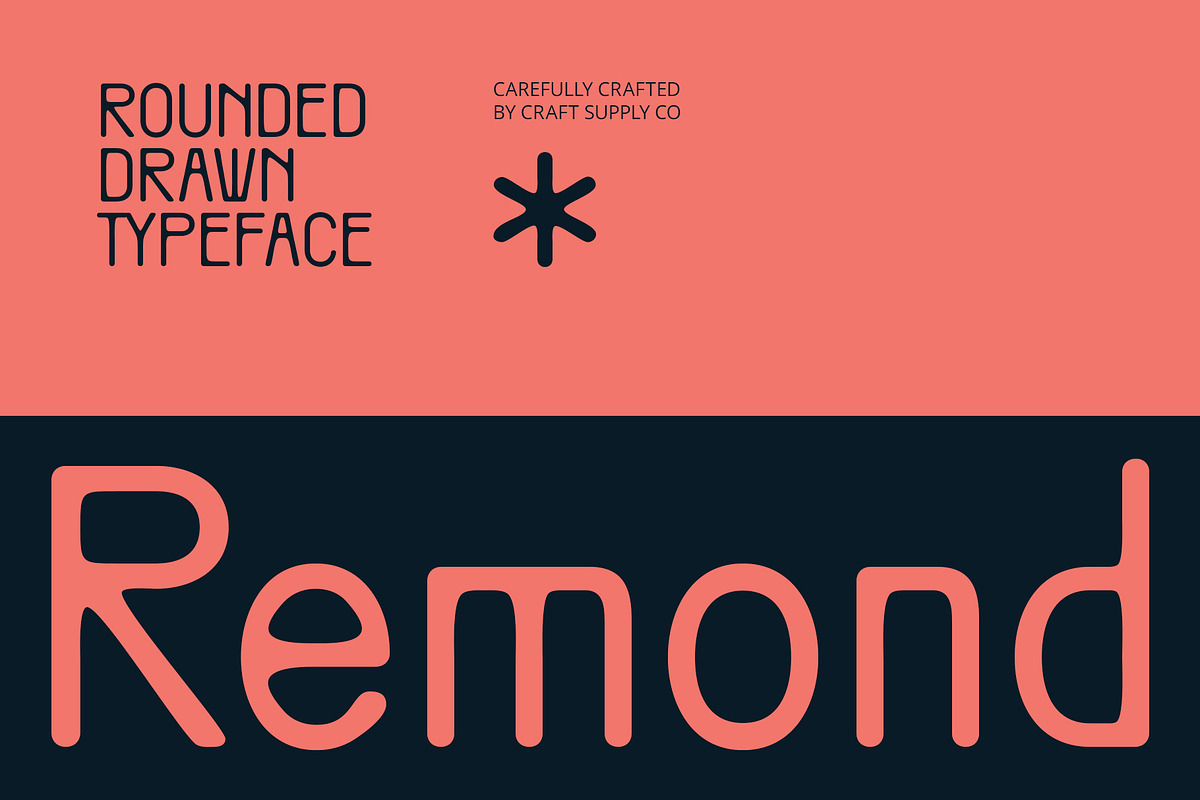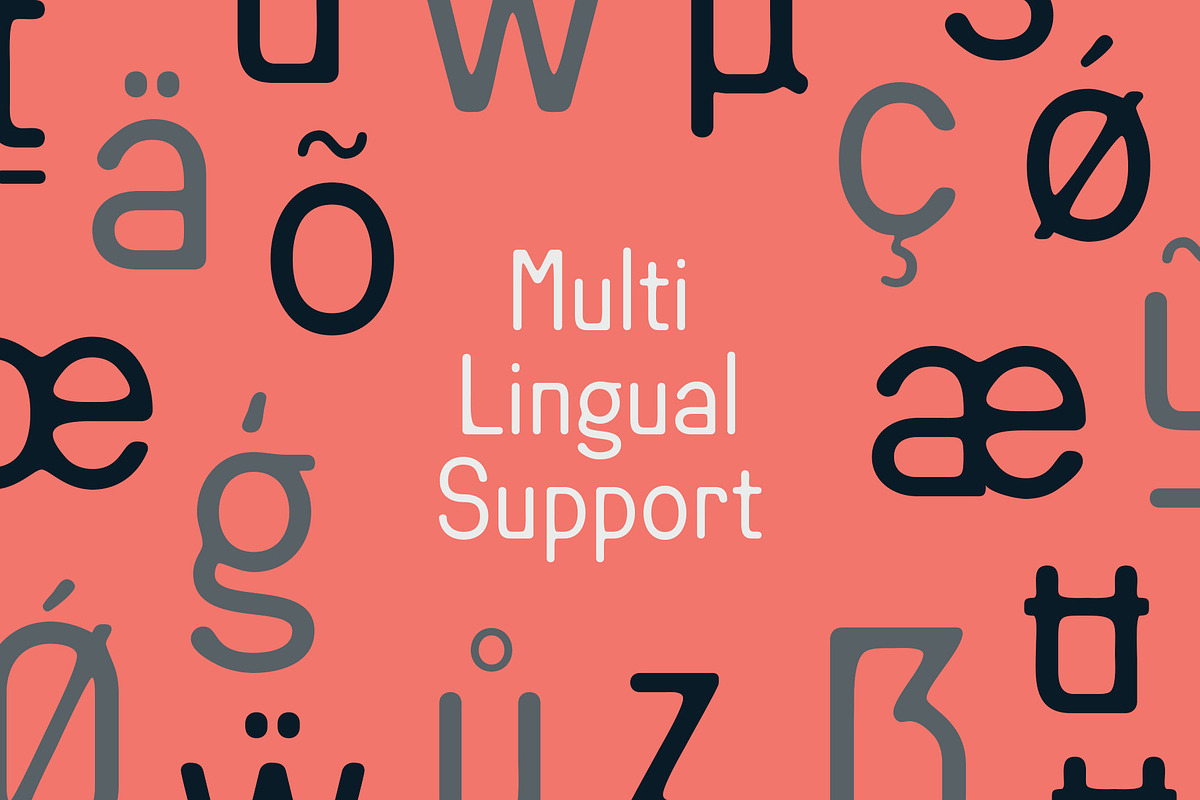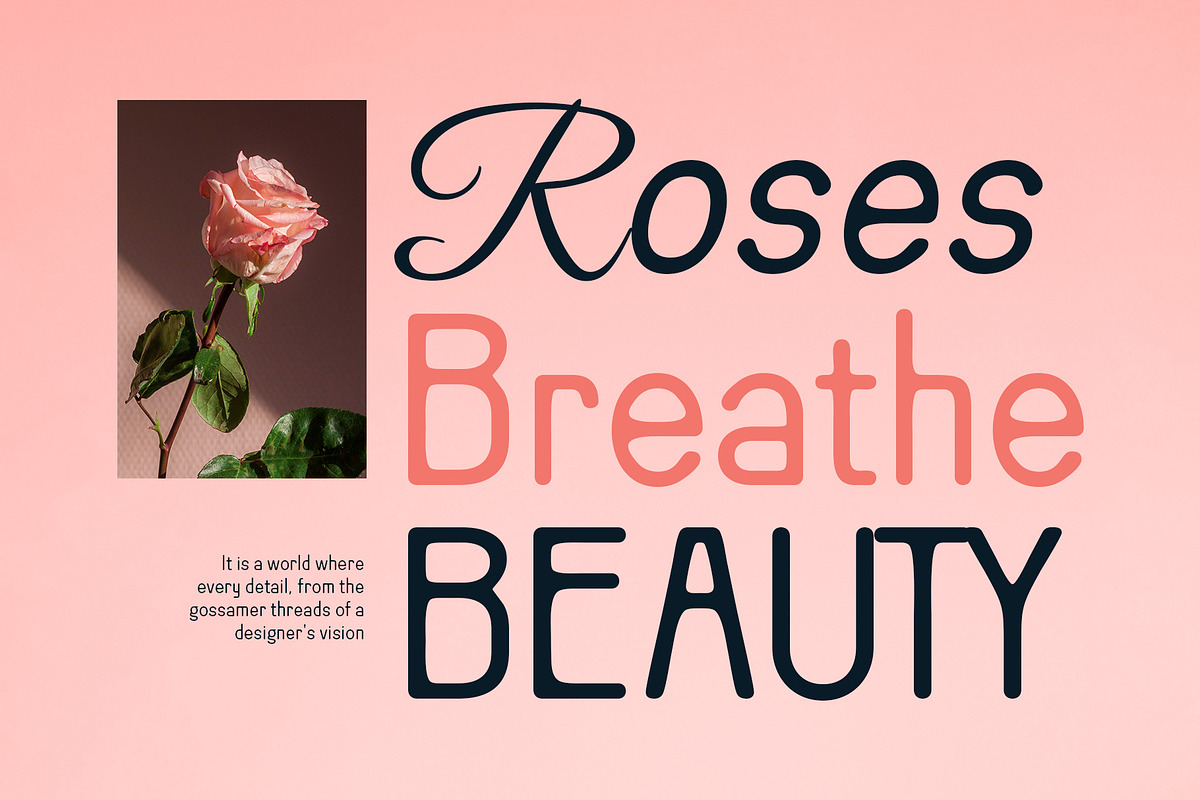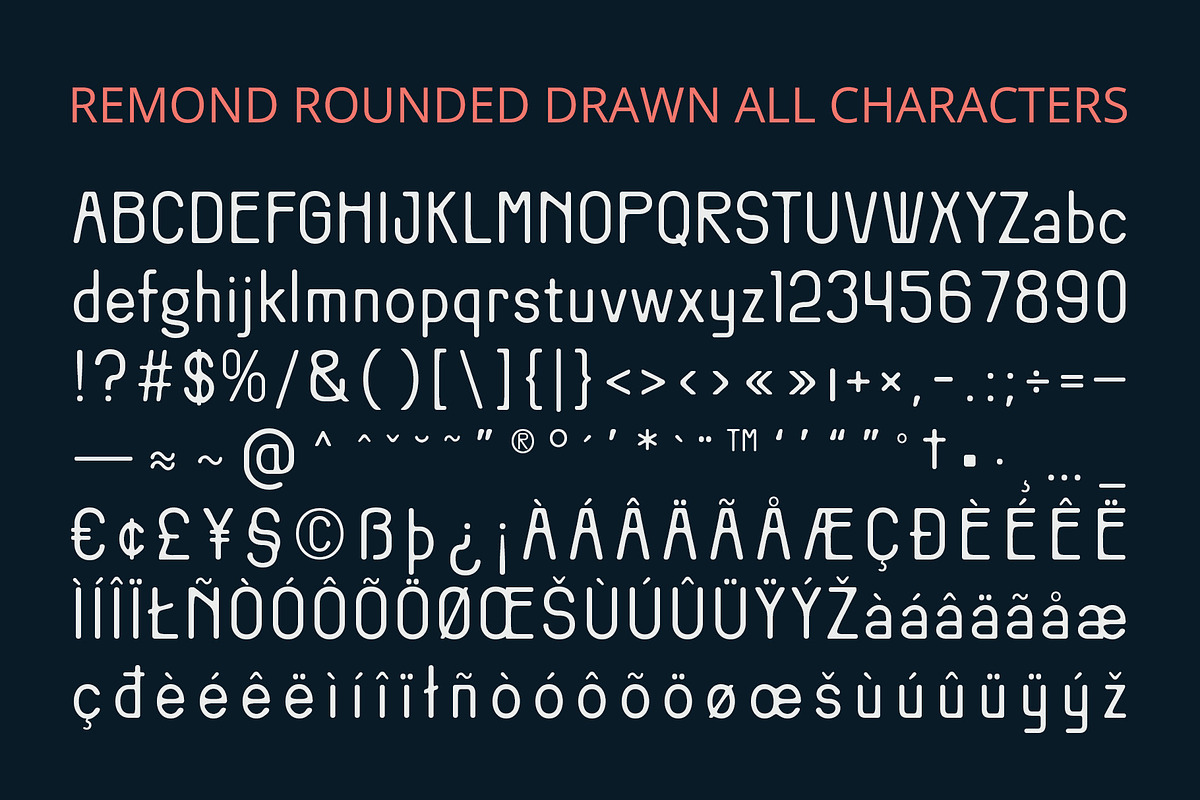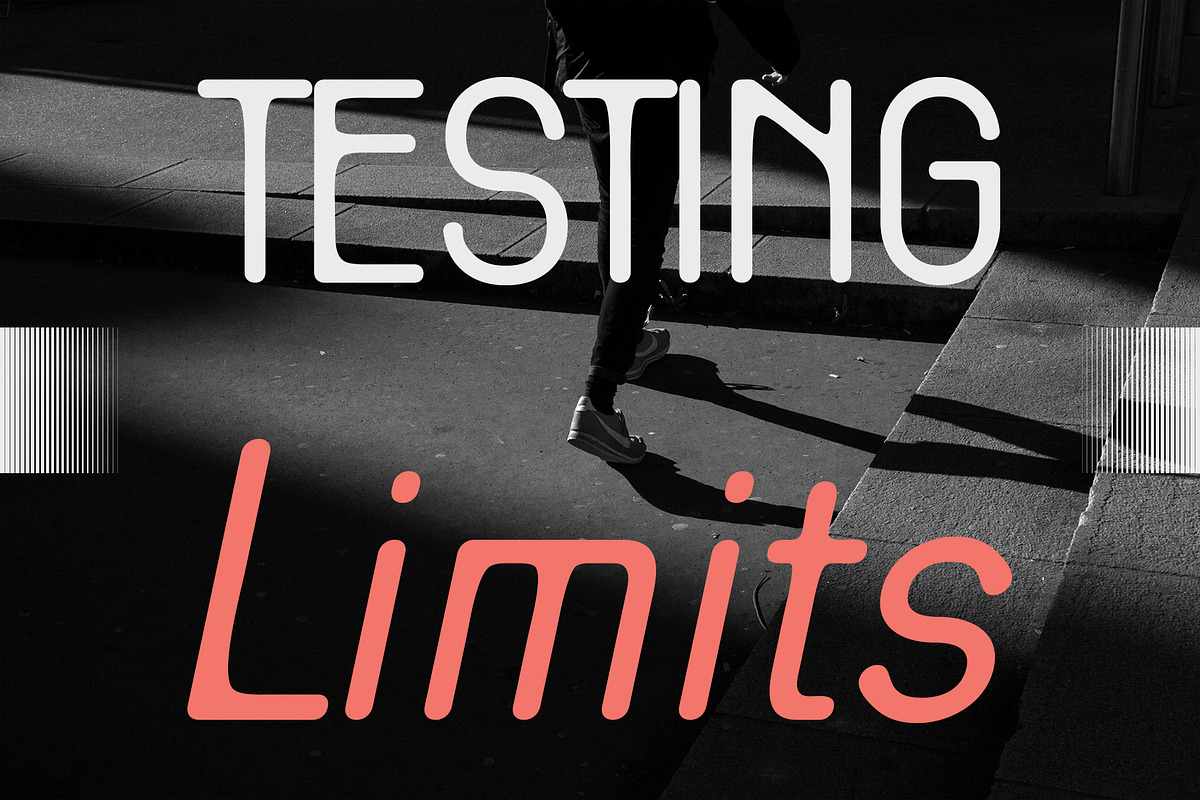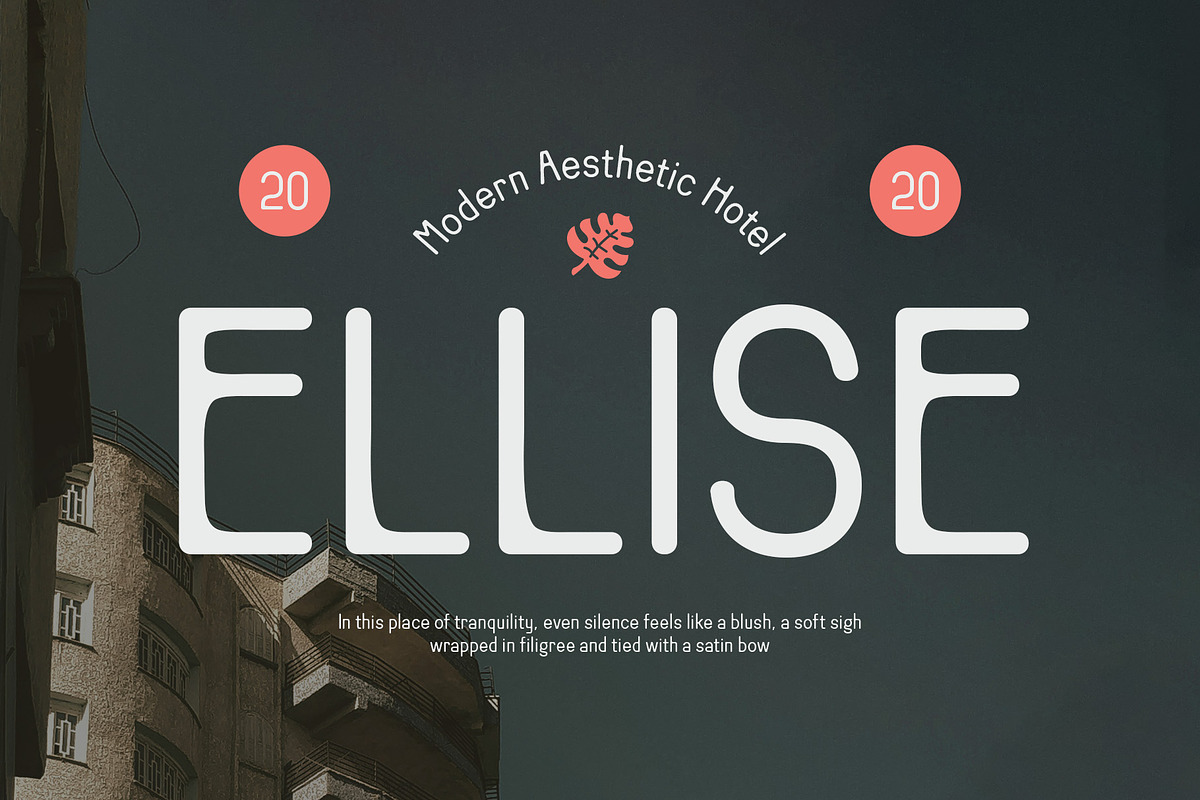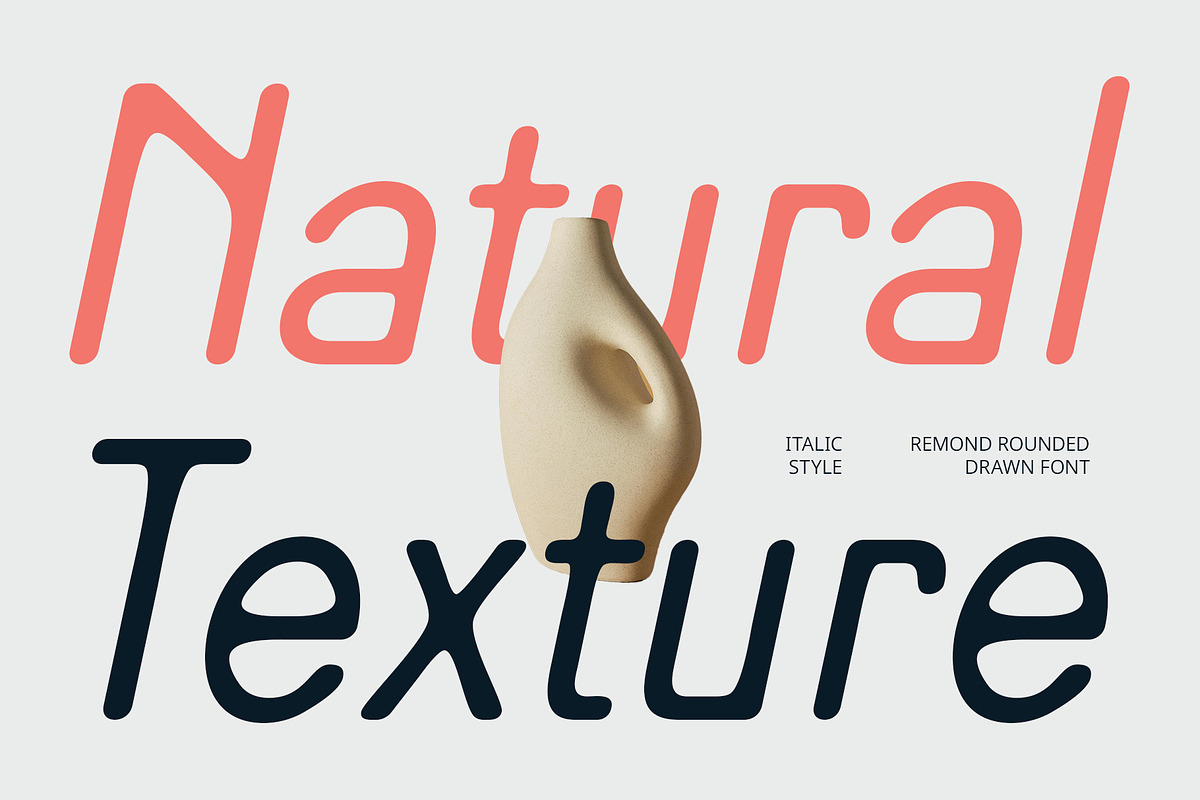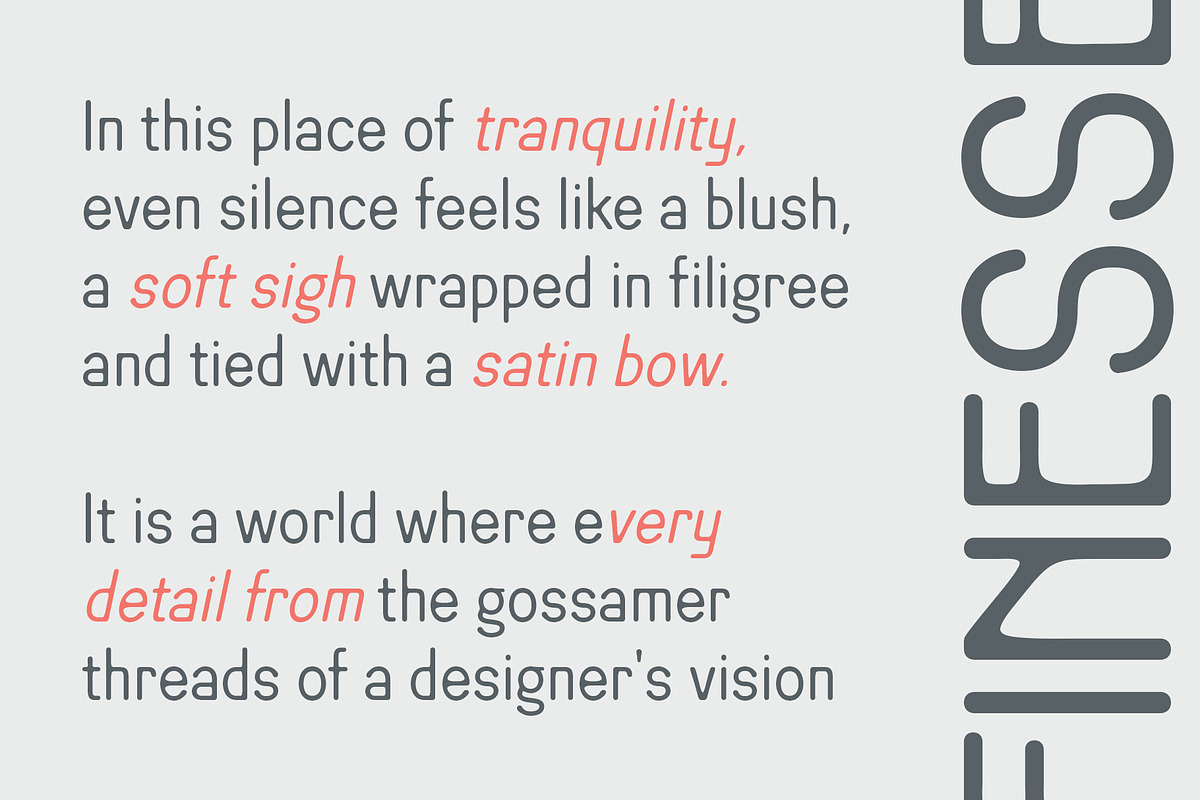
Remond Rounded Drawn
Remond Rounded Drawn – A Condensed Retro Sans with Handcrafted Warmth
Clean Structure with a Friendly Twist Remond Rounded Drawn is a sans serif font that merges sleek condensed proportions with gently rounded corners, striking a balance between modern precision and approachable charm. Its classic sans-serif structure lends it a sense of clarity and timelessness, while the rounded terminals soften its appearance, making the font feel more welcoming and versatile.
A Nod to the Past with a Contemporary Touch The typeface draws subtle inspiration from mid-century modern typography, where its proportions and rhythm echo a retro aesthetic without appearing dated. It’s a subtle tribute to the 1950s–60s print era, modernized for today’s digital applications.
Drawn Texture for Expressive Personality What sets this retro-inspired font apart is its hand-drawn effect—a carefully applied texture that introduces an organic, slightly imperfect quality. This adds depth, personality, and a human touch to its otherwise clean form, making the typeface feel lively, personal, and crafted.
Ideal for Nostalgic Yet Modern Designs This friendly font is perfect for branding, packaging, editorial headlines, posters, and any design project that seeks to blend retro spirit with modern design sensibilities. It conveys confidence and friendliness, making it suitable for creative studios, lifestyle brands, and expressive visual identities.